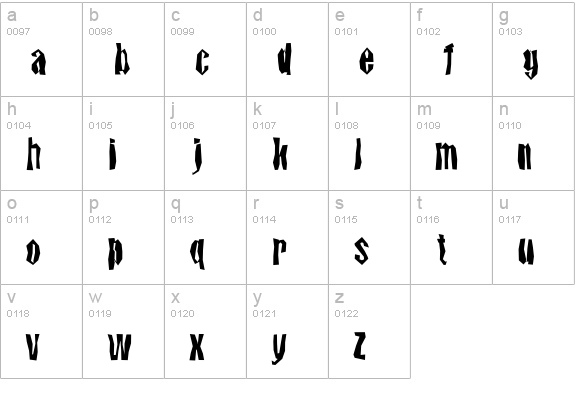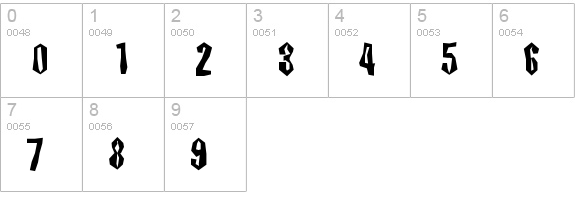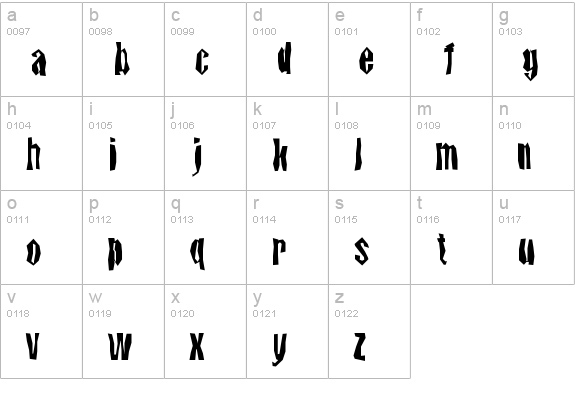
FunkedUp Font Details
FunkedUp font is a funky and stylish display typeface that adds a playful touch to any design project. With its bold, energetic letters and unique retro aesthetic, this font is perfect for creating eye-catching headlines, posters, and branding materials. The quirky and fun vibe of FunkedUp font makes it a great choice for projects that require a touch of personality and creativity. And the best part? FunkedUp font is available for free download at FontsMarket.com! Now you can easily add this cool and trendy font to your collection without breaking the bank. Don't miss out on the opportunity to enhance your designs with the energetic charm of FunkedUp font. Download it today and let your creativity run wild!